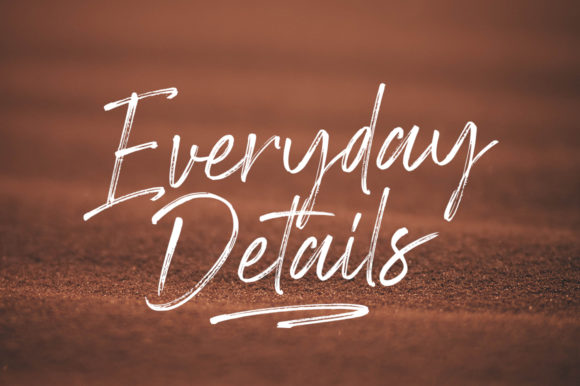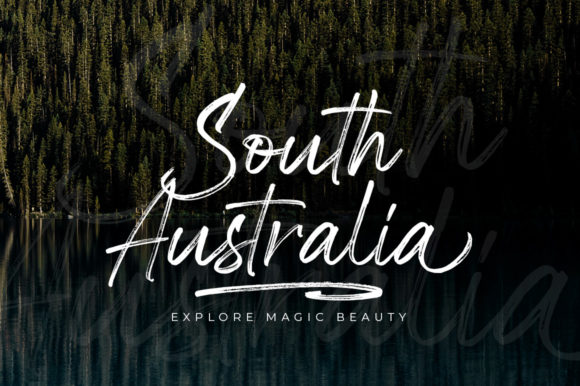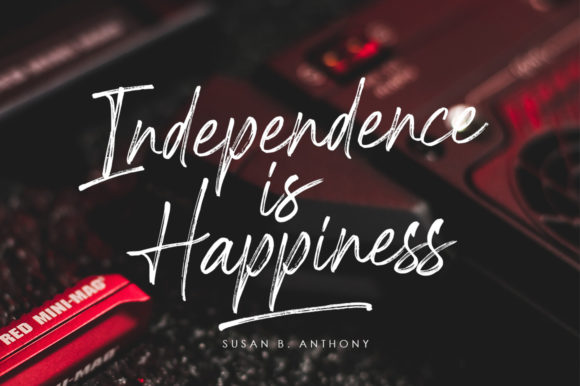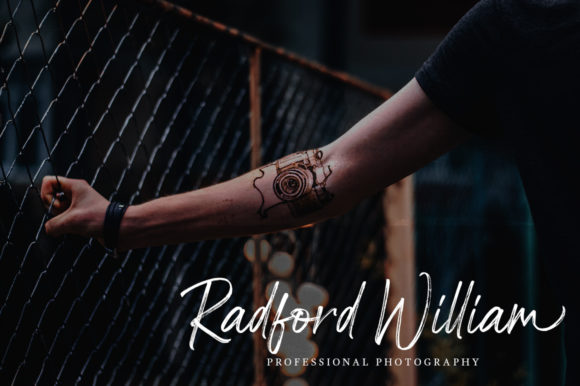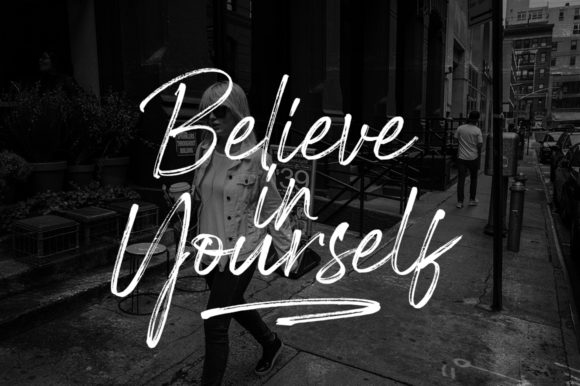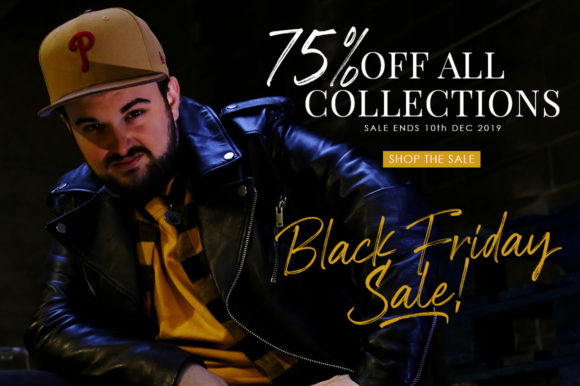
Introduction to Riverstyle Font
As a designer, there’s nothing quite like the thrill of bringing a creative project to life. It’s that moment when you’re brainstorming ideas, sketching out concepts, and refining your vision that sparks true inspiration. For many of us, that spark often comes from discovering the perfect font to convey our message.
That’s where the Riverstyle Font comes in – a bold and authentic dry brush script that exudes confidence and authenticity. Whether you’re working on a high-profile campaign or a personal passion project, this versatile font is sure to elevate your design to the next level.
Key Features of Riverstyle Font
- High-quality design resource ideal for creative projects, with a unique and stylish aesthetic.
- Transparent background, allowing for seamless integration with any design.
- Comes in a single size, making it easy to use in a variety of design contexts.
- Unique characteristics include a modern and elegant design, making it perfect for creative projects that require a touch of sophistication.
Honest Review: Riverstyle Font
As a designer, I’m always on the lookout for high-quality design resources to elevate my creative projects. Recently, I stumbled upon the Riverstyle Font, and I’m excited to share my honest review.
- High-quality vector graphics: The Riverstyle Font boasts crisp, clear lines and smooth curves, making it perfect for print or digital designs.
- Transparent background: This feature allows for seamless integration into any design project, saving time and effort.
- Limited character set: While the font is beautiful, the character set is relatively small, which might limit its versatility.
- No bold or italic styles: For more dramatic effects, designers might find themselves needing to create custom styles, which can be time-consuming.
Overall, I’m impressed with the Riverstyle Font’s quality and ease of use. While it has some limitations, its free download and transparent background make it a valuable design resource. I’d definitely recommend it for smaller-scale creative projects or as a starting point for more complex designs.
Experiment with different font sizes, colors, and combinations to create unique designs. Use the Riverstyle Font in conjunction with other design elements, such as images or shapes, to add depth and interest to your project.
The Riverstyle Font is suitable for a wide range of creative projects, including social media graphics, presentations, marketing materials, and documents. It’s also a great resource for designers looking for a high-quality, free download font with a transparent background.